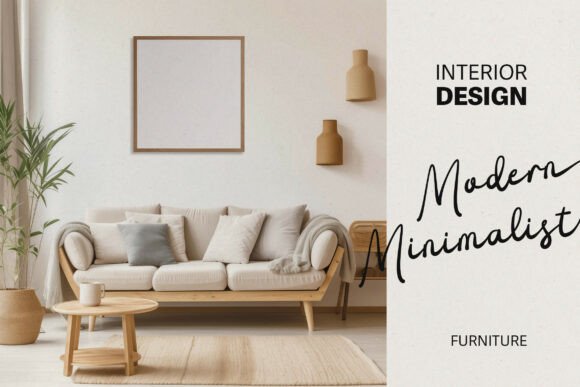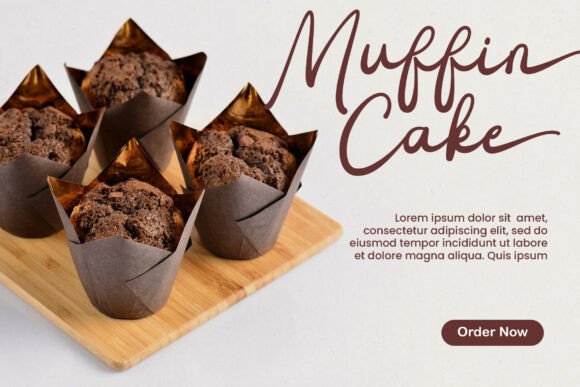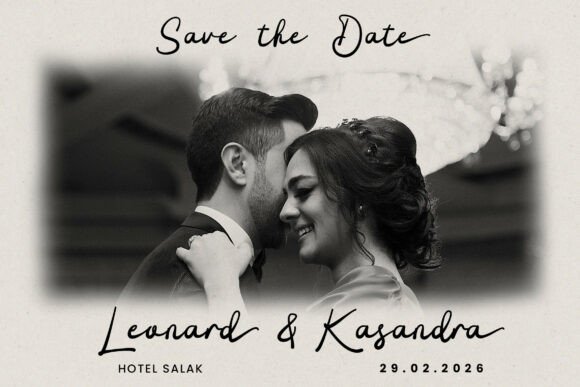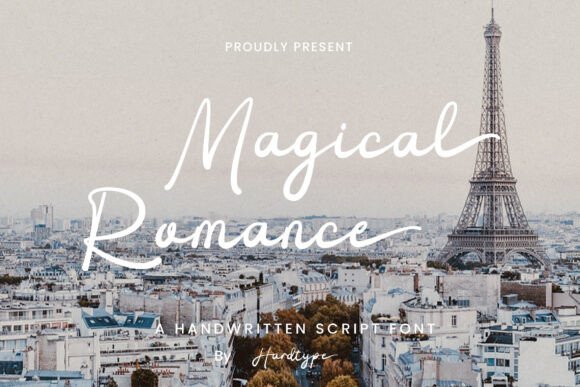
Introduction to Magical Romance Font
Magical Romance is a dreamy handwritten script font with elegant strokes and a heartfelt, personal touch.
Perfect for love letters, wedding designs, travel blogs, and branding that needs a warm and whimsical feel, this font brings effortless charm to any project .
Key Features of Magical Romance Font
Why Choose Magical Romance Font?
Magical Romance Font offers exceptional quality and versatility, making it a valuable addition to your design toolkit. Whether you’re creating for personal projects or commercial use, Magical Romance Font delivers professional results.